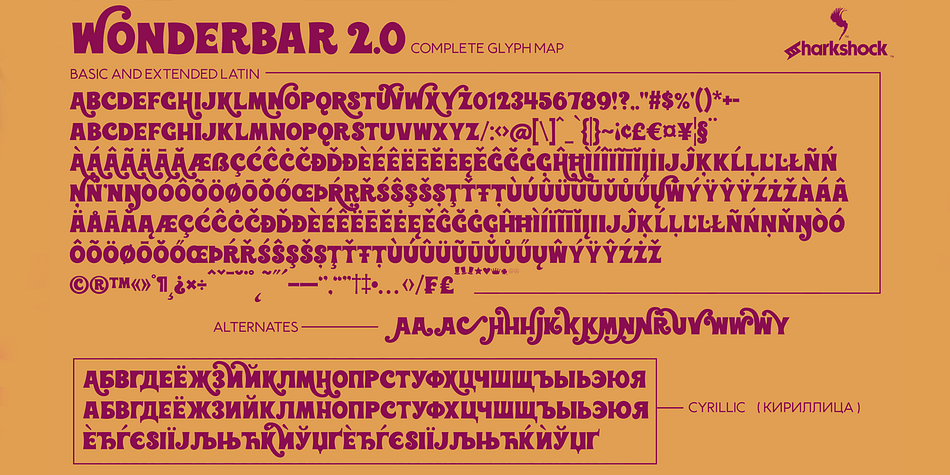
Wonderbar 2.0
Designed by Dennis Ludlow, Wonderbar 2.0 is a multiple classification font published by Sharkshock.
Wonderbar is back for another round of wackiness with an updated 2.0 version. While this popular retro font may appear similar to the legacy version at first glance, many characters were completely redrawn. Curves and loops take on a smoother appearance. Less emphasis was put on the undulating nature of most glyphs with cleaner, straighter lines providing a slightly more orderly look. Other changes include tighter metrics, more diacritics, and the addition of Cyrillic characters. Wonderbar 2.0 will work well for a children’s book, poster, or birthday invitations.
Basic Latin, extended Latin, diacritics, Cyrillic, punctuation, kerning, and alternates are included. Please check the glyph map for all supported characters and images.